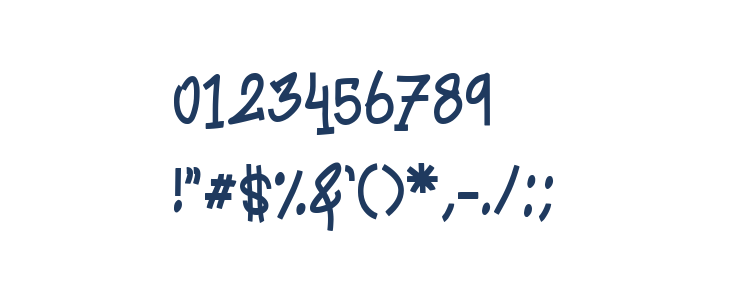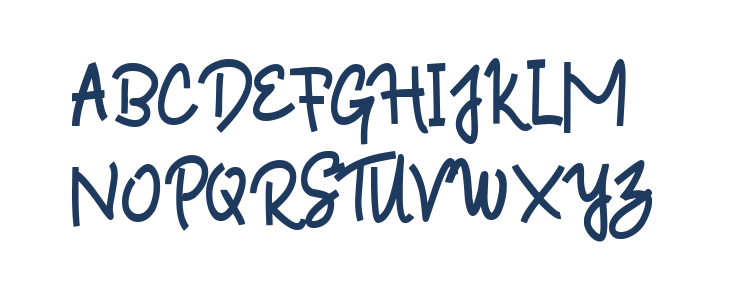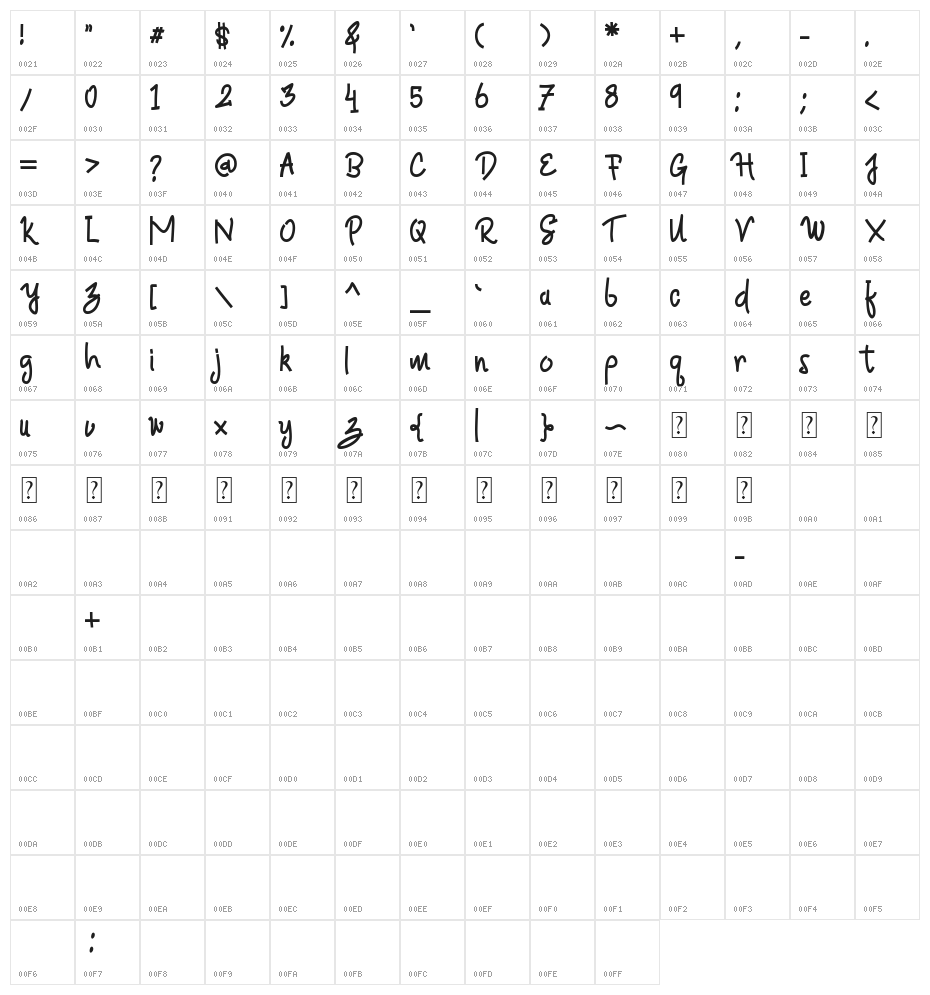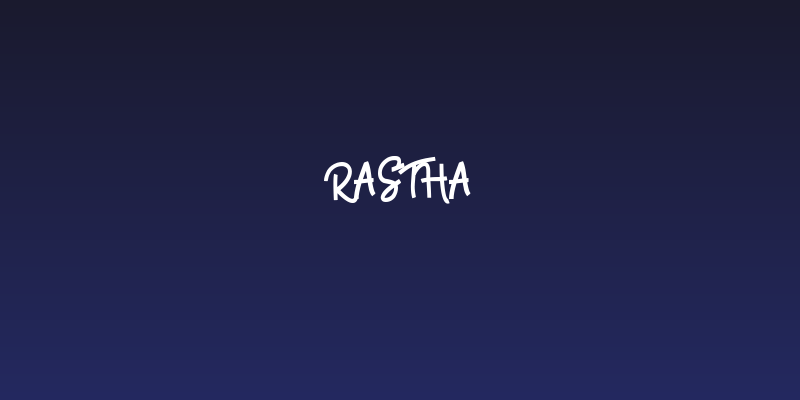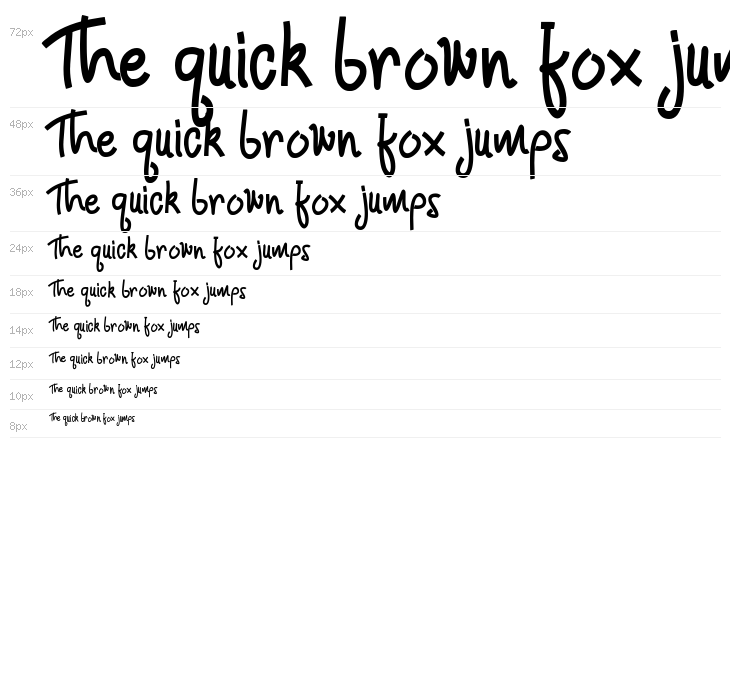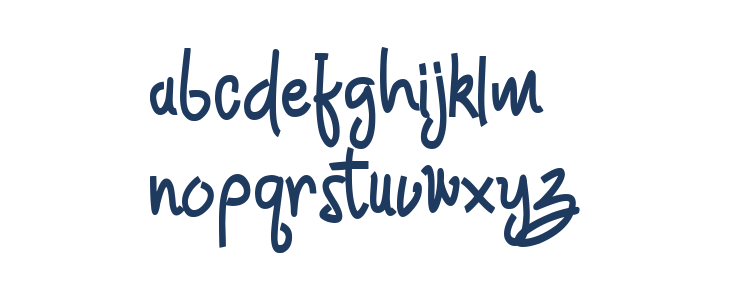
Rastha Font
Rastha Description
A playful, handwritten script font with irregular strokes and a casual, informal appearance. The characters have a natural flow, with varying heights and dynamic curves, giving it an energetic and spontaneous feel.
| Overall Style | Decorative, Playful, Informal |
| Use Case | Logos, Headlines, Posters, Invitations |
| Proposed Projects | Greeting cards, invitations, posters, branding for creative businesses, social media graphics. |